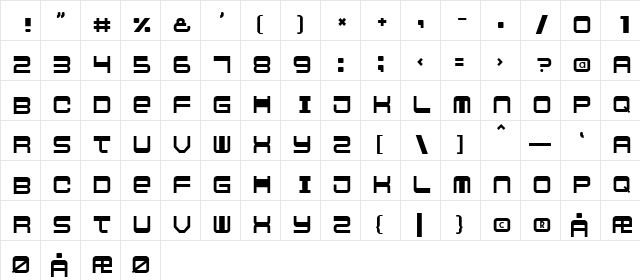
Logic lodger Regular
Design Context for Logic lodger Typeface
Logic lodger offers clean, dependable letterforms without strong stylistic allegiance, making it a practical choice for designers who need flexibility.
Pro Tip: Use Logic lodger in both headline and body roles to test its range before committing to a single application.